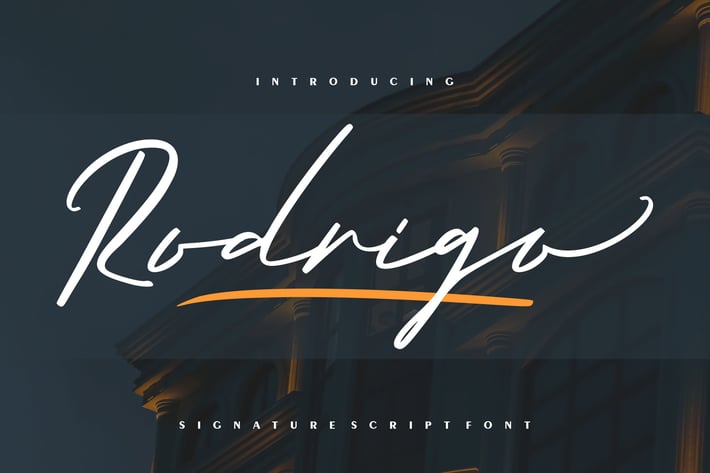
Rodrigo | Signature Script Font
Rodrigo | Signature Script Font with a calligraphy style, So beautiful on invitation like greeting cards, branding materials, business cards, quotes, posters, and more!